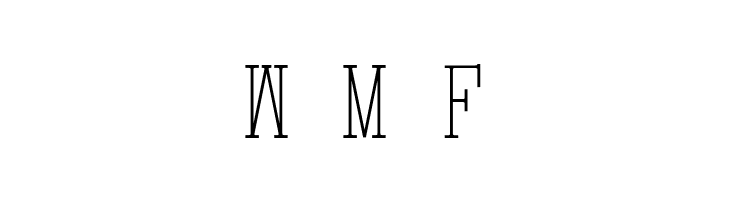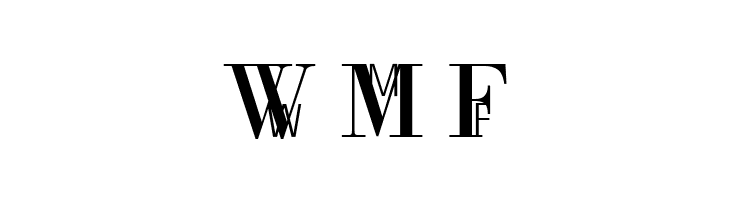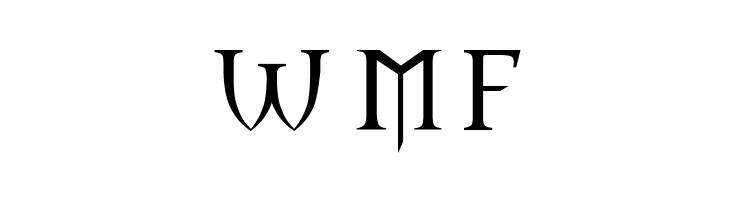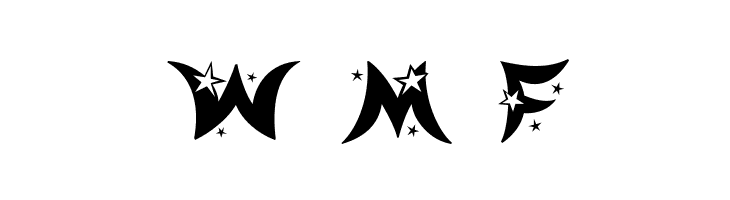
• Monika Bold
• Monkey Business NF
A bold, geometric font with Art Deco influences and high contrast.
• Monkey Fingers NF
A bold, geometric font with playful and artistic elements.
• MonkeyBusinessNF
A bold, geometric font with Art Deco influences and decorative elements.
• MonkeyFingersNF
A bold, geometric font with playful and angular design elements.
• MonkeysTheatre
A whimsical decorative font featuring monkeys and architectural silhouettes.
• Monsieur La Doulaise Regular
An elegant script font with intricate, flowing lines and ornate uppercase letters.
• MonsieurLaDoulaise-Regular
An elegant script font with ornate uppercase letters and smooth, flowing lowercase characters.
• Monterey Popsicle NF
A playful blend of geometric and script styles with bold, consistent strokes.
• MontereyPopsicleNF
A playful, geometric font with bold lines and curves, blending modern and retro styles.
• Moonlight
A whimsical, celestial-themed decorative font with moon and star elements.
• Moonstone
A mystical and elegant font with elongated, narrow letterforms and sharp serifs.
• Moonstone
• Moonstone Stars
A decorative font with star motifs and a mystical, celestial style.
• Morgenstern
A decorative, geometric font with angular lines and a futuristic aesthetic.
• Morpheus
A dramatic, medieval-inspired serif font with sharp serifs and unique letterforms.
• moskito screen
A distressed, grungy font with a textured, artistic style.
• MotherAndChild
A bold serif font with high contrast and elegant serifs, perfect for impactful headlines.
• Moukoh Ultra Light
A modern, ultra-light monospaced font with a clean and minimalist design.
• MouseArt
Playful, illustrated font with animal-themed characters in bold black-and-white.
• MouseFruitFaces
A playful series of fruit and vegetable characters with abstract facial features.
• MouseVectorarts